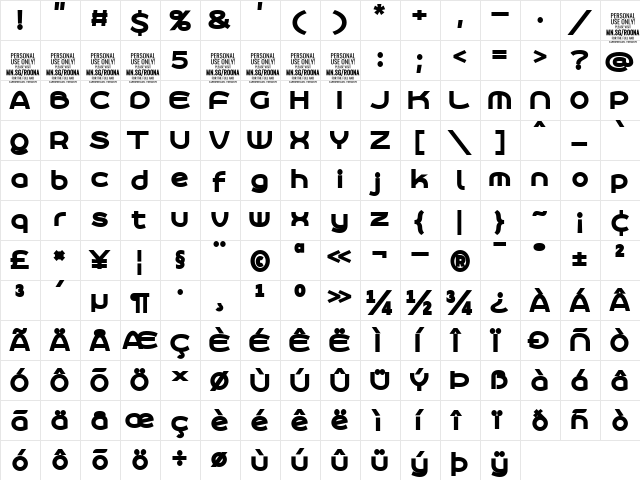
Roona Sans Black PERSONAL Regular
| Foundry | Mans Greback |
| Designer | Mans Greback |
Design Context for Roona Sans Black PERSONAL Typeface
Roona Sans Black PERSONAL offers clean, dependable letterforms without strong stylistic allegiance, making it a practical choice for designers who need flexibility.